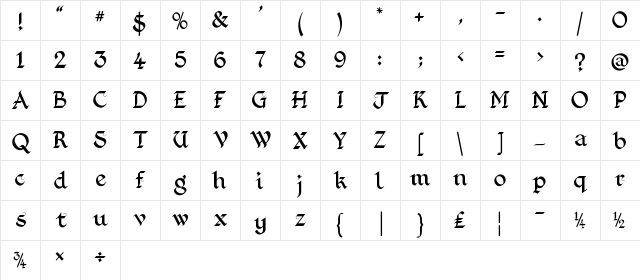
Kingthings Foundation Regular
Designer: Kevin King: Kingthings 2002
Design Context for Kingthings Foundation
Kingthings Foundation is a composed and adaptable typeface that performs quietly and consistently across a wide range of design contexts. Its slender proportions lend an understated elegance to any composition.